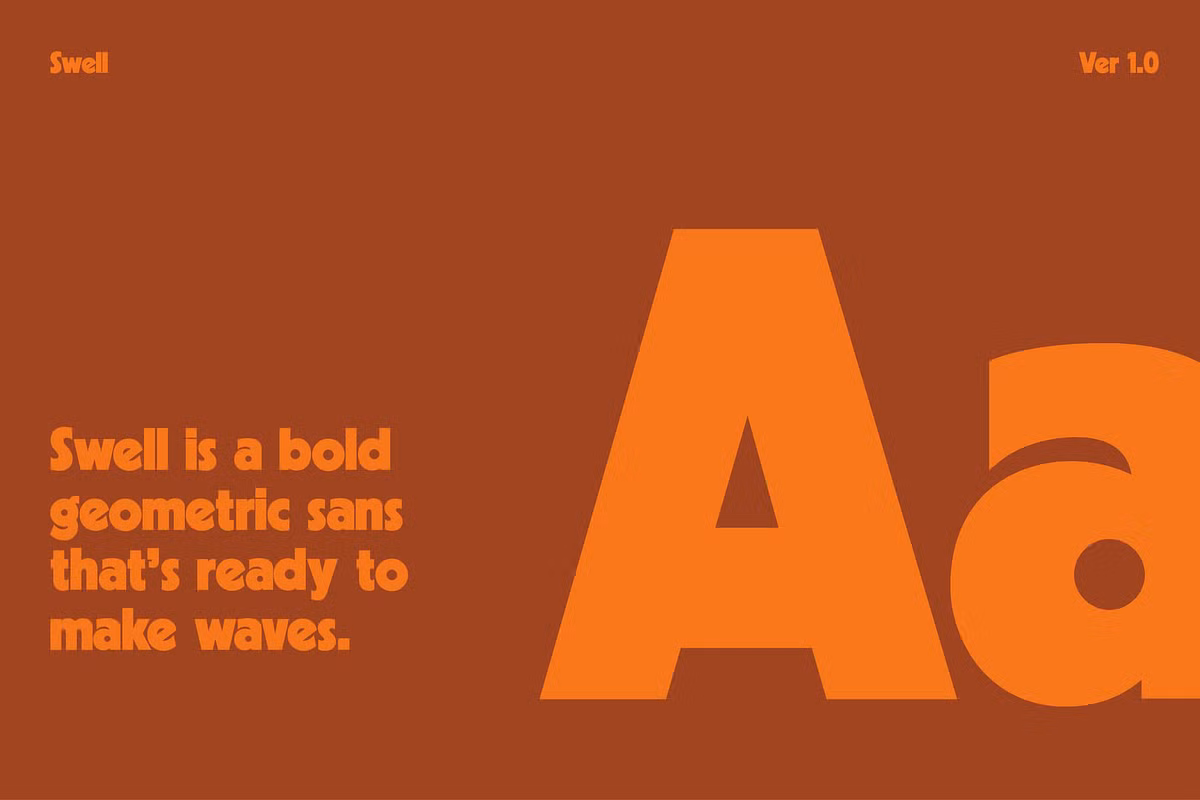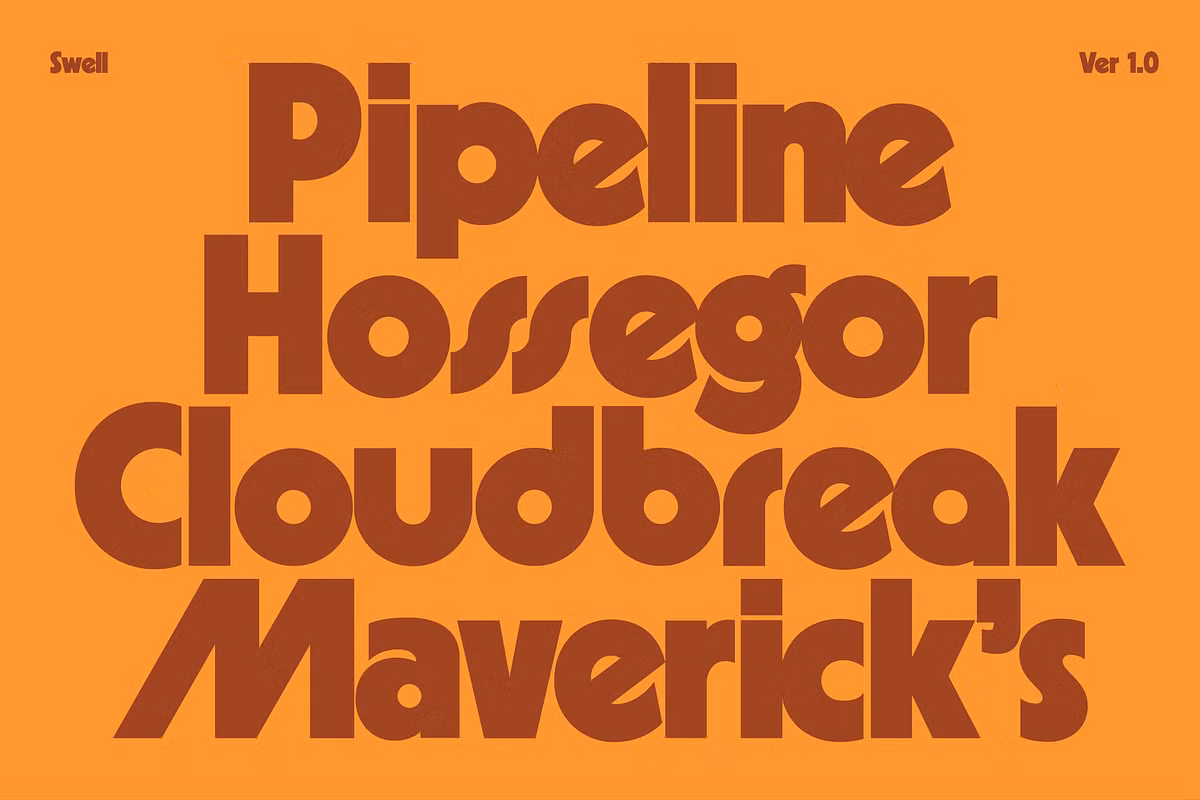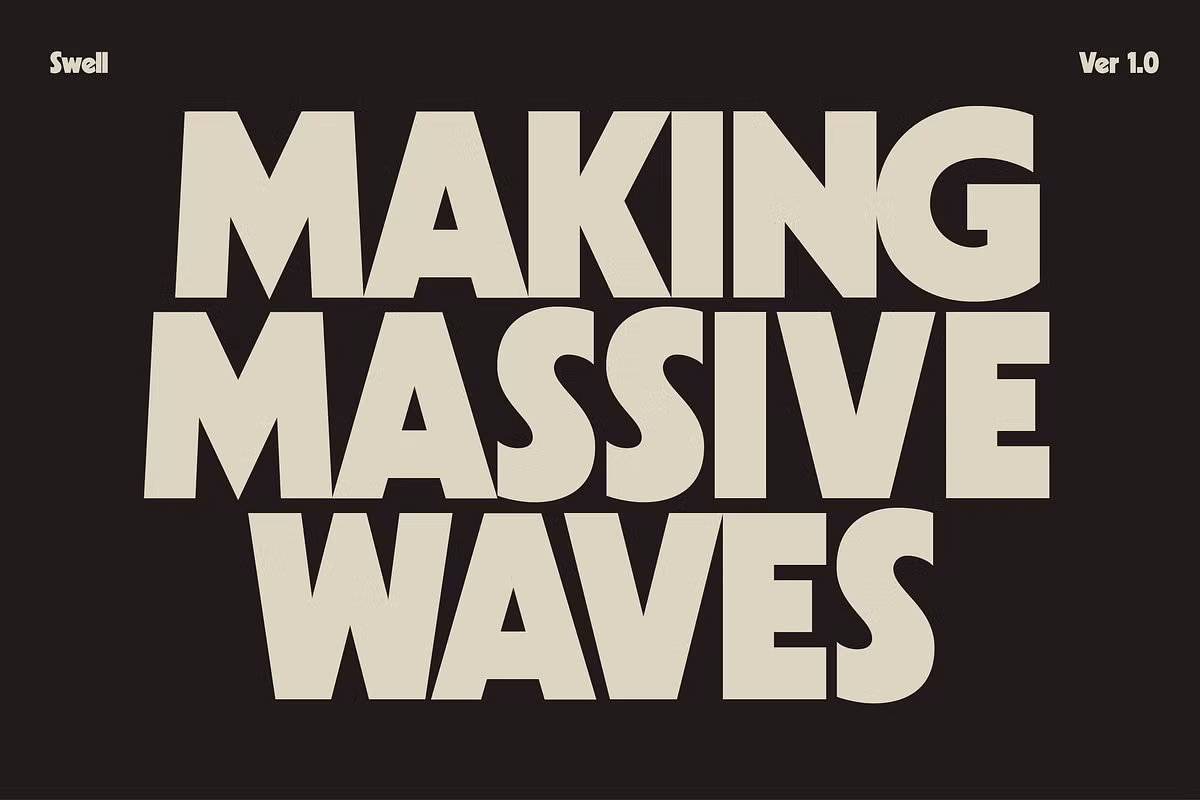
Swell - Display Font
Swell: Bold Geometric Display Font Inspired by Classic Typography
Swell is a typeface that gives life to the classic design of Kabel Black. Swell is a sans serif font that works well for modern design needs and keeps the feel of old style typography. When I use Swell I see that the letters are clear and the shapes are strong. Swell has its set of characters and design details. Swell stands out as a choice, for creative projects.
An example of the Swell font showcasing its geometric design.
The design style of Swell is geometric. The design style of Swell has lines and bold shapes. The typeface draws from the look of fonts such, as Kabel Black. The typeface also adds parts of known fonts, like Avant Garde, Marvin and Blippo. The blend of influences gives the design style of Swell a look that feels both modern and nostalgic.
Swell’s boldness makes Swell a good choice, for headlines and display text. Swell catches the eye. Makes an impression. The geometric shapes give Swell a look. That modern look lets Swell work well for jobs, from branding to advertising. Also the mix of lowercase letters gives Swell flexibility. That flexibility lets me play with text layouts.
Typography design featuring the Swell font in various applications.
Swell has a character set that includes letters, lowercase letters, numbers and punctuation. The character set meets design needs. When I work on a logo I reach for the character set. Designers can also use the character set for a website or a poster. Swell adds over 50 glyphs. The alternative glyphs give designers ways to change their text. The alternative glyphs let designers get the look they want.
The alternative glyphs help your designs stand out. By mixing and matching the glyphs the alternative glyphs let you make compositions that catch the eye and get your message across. The variety of characters, in Swell means Swell is not a typeface, for all. Swell can adapt to style needs.
I have used Swell. I find Swell to be flexible, in many of the applications. Here are the main use cases:
• Branding: Swell works well for logos and branding materials. Swell gives the look that fits the style. Swell helps make the statement that stands out.
• Advertising: I have seen the typeface make headlines stand out in print or digital formats. The typeface makes advertisements catch attention.
• Web Design: I have used Swell. Swell has the lines. Swell works well for website headings. Calls, to action. Swell improves user experience because Swell provides readability.
• Flyers: Swell has a character. Swell works well in event promotions. I have tried Swell. I think Swell is a pick, for the posters and flyers.
Swell font displayed on branding materials
Branding materials showcasing the versatility of the Swell font.
When I read these use cases I see how Swell lifts your design projects. Swell helps your design projects make an impression, on the audience.
I have found that Swell works with some fonts. When I pair fonts the right companion, for Swell can lift my designs. Here are some pairing suggestions:
• Serif Fonts: I pair Swell, with a serif font such as Times New Roman or Georgia. Swell has shapes. A serif font has curves. The contrast, between Swell and a serif font creates a look.
• Modern Sans Serifs: For a look pair Swell, with a sans serif such as Helvetica or Open Sans. The pairing keeps an aesthetic. The pairing also ensures readability.
• Script Fonts: When a design needs a touch of elegance use Swell with a script font. The combination adds a feel, to invitations and, to branding materials.
I have tried experimenting with these pairings. I get typography that looks good and catches the eye. The typography lifts the design aesthetic.
Swell is more, than a font. Swell shows a shape that nods to the classic typography and also feels modern. Swell comes with a set of characters. Swell works in projects. Swell has a design that catches the eye. Designers who want to stand out can use Swell. Adding Swell to a project helps the work stand out in the design world. I have tried Swell in my designs. Swell works well.